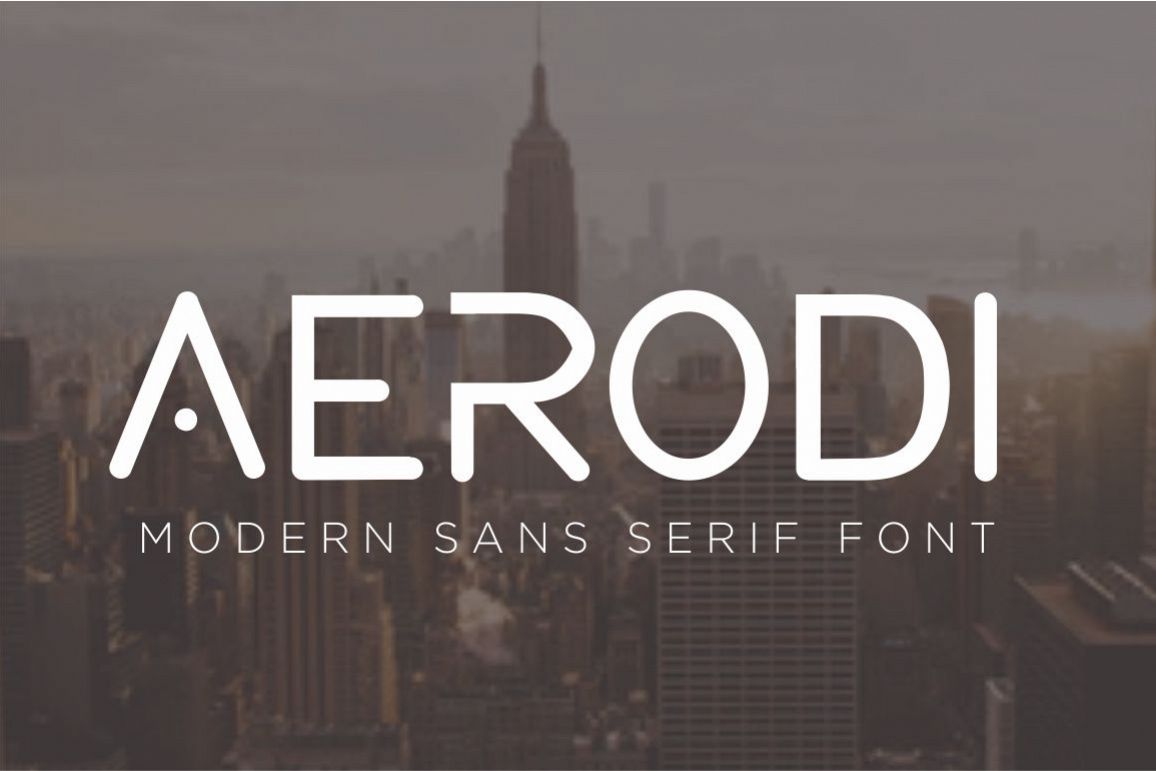
AERODI - Modern Sans Serif
Aerodi is a sleek sans-serif typeface. It can be used as body text or as a display font. With inspiration from technology, geometry and minimalism, Aerodi suitable font logo, magazine header, powerpoint, branding, brochure, card, logo design an otherPerfectly suited on print/screen; it can be used freely for logotypes, e-books and mobile applications and is especially food for headlines, banners, posters, web-sites, magazines, etc.FEATURES :